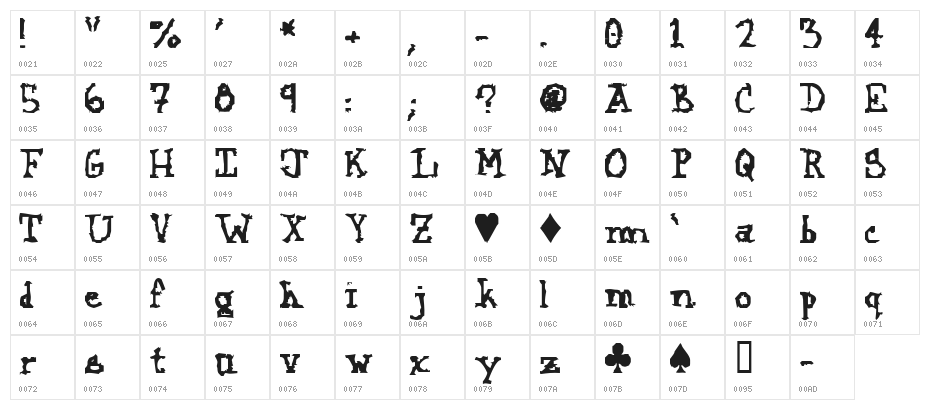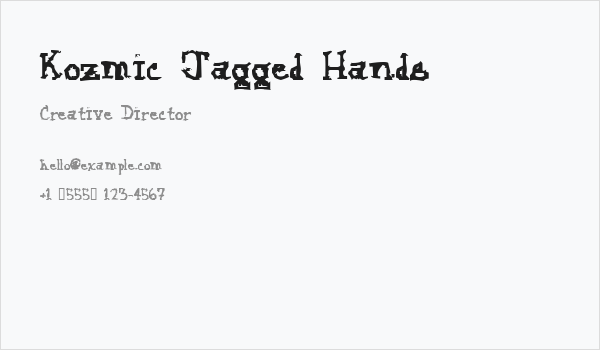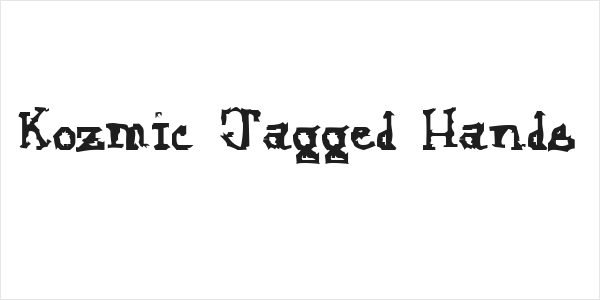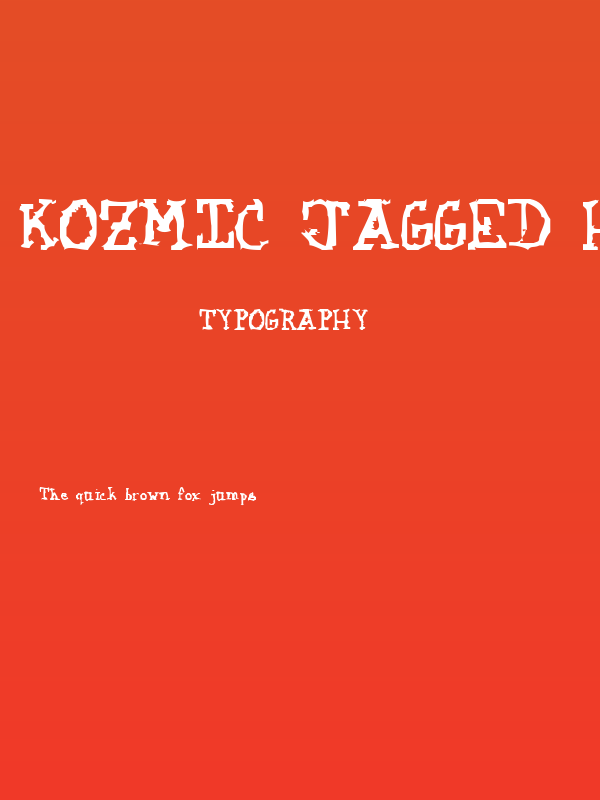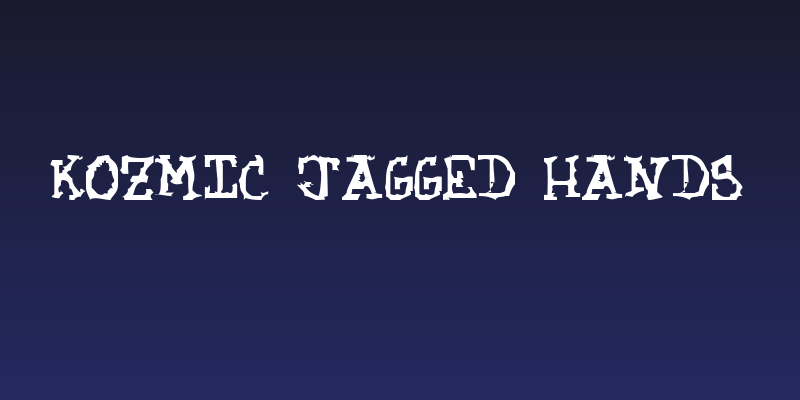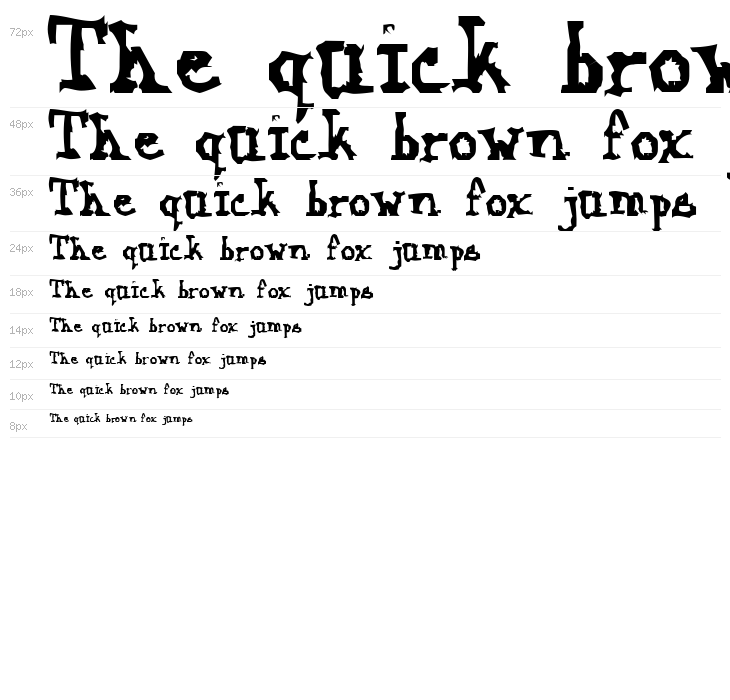
Kozmic Jagged Hands Font
Kozmic Jagged Hands Description
This font features a jagged, edgy design that gives it a unique and bold appearance. The characters are irregular and sharp, resembling torn paper or jagged rocks, which adds a sense of ruggedness and intensity. The uppercase and lowercase letters maintain a consistent style, with exaggerated angles and uneven edges. The numbers and special characters follow the same design principles, ensuring a cohesive look across all glyphs. This font's distinctive style makes it stand out, perfect for projects that require a dramatic and eye-catching typeface.
| Proposed Projects | Ideal for horror-themed posters, edgy branding, album covers, and Halloween invitations. |